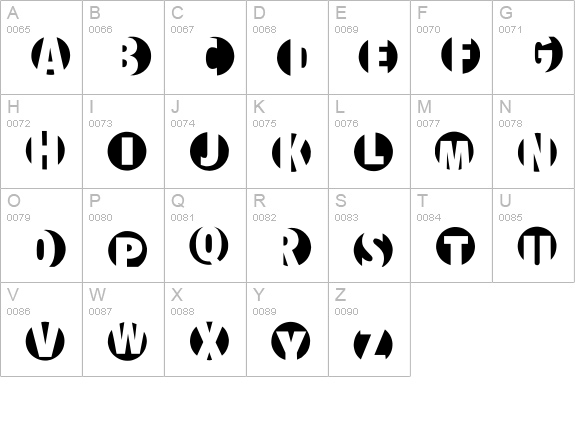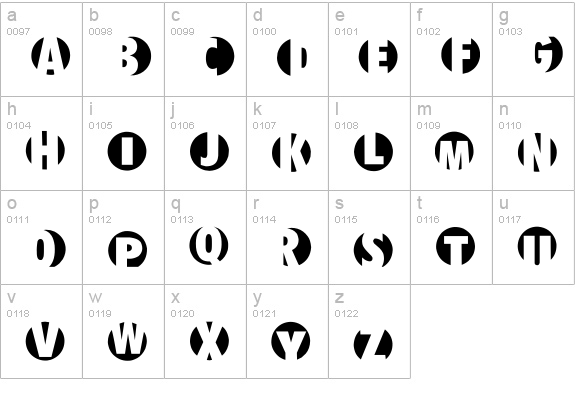
Milit Font Details
Milit font is a modern and sleek typeface that exudes sophistication and elegance. With its clean lines and sharp edges, Milit is perfect for creating eye-catching designs that demand attention. This versatile font is suitable for a wide range of projects, from branding to editorial design. What sets Milit font apart is not only its striking appearance but also the fact that it is completely free to download. You can get your hands on this stylish typeface at FontsMarket.com, where you can easily access and start using it in your creative endeavors. With Milit font, you can elevate your designs without breaking the bank. Download it now and explore the endless possibilities that this font has to offer.